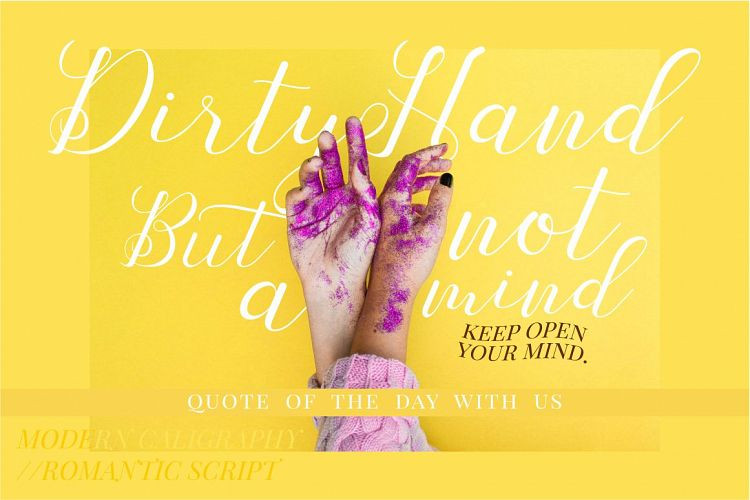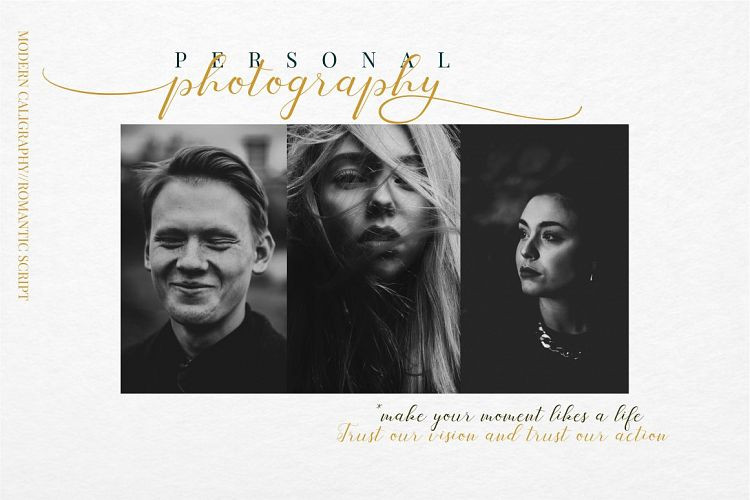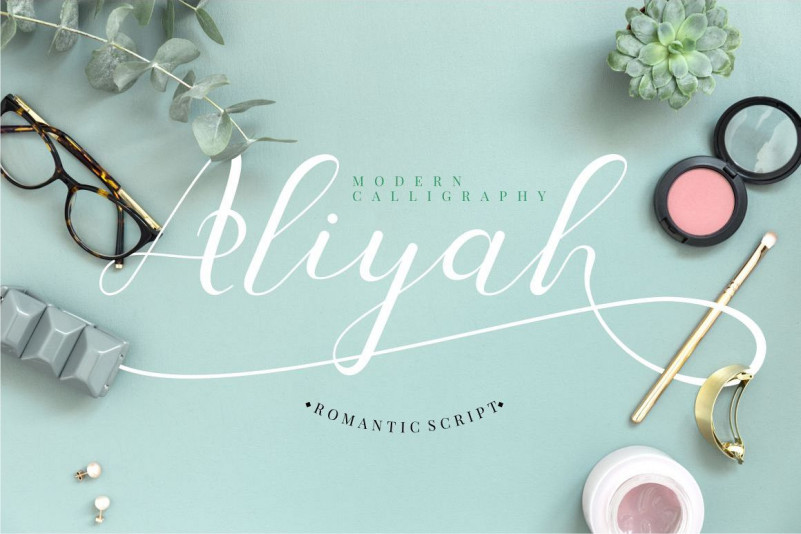
Aliyah Font
Aliyah
Introducing a elegance script font called ” Aliyah “, a casual and beautiful calligraphy font with a modern touch.
Come with open type feature with a lot of alternates, its help you to make great lettering.
Lusya best uses for wedding invitation, invitations, signature, typography lettering, branding, label, poster, logos, quotes, product packaging, header, merchandise, social media & greeting cards and many more.